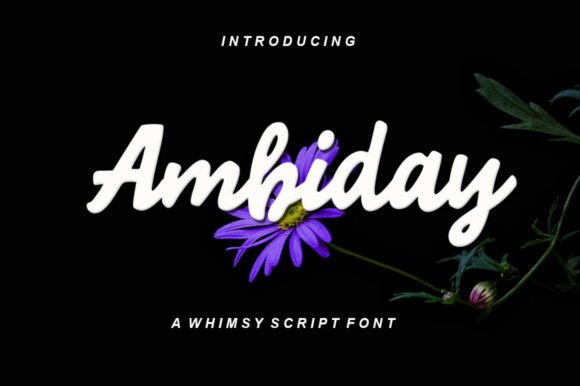
Introducing Ambiday Font: Elevate Your Designs with Elegance and Sophistication
In the world of typography, fonts play a crucial role in conveying the tone and personality of a brand or design. Among the numerous fonts available, Ambiday Font stands out for its unique blend of elegance and contemporary charm. This stylish script font is designed to add a refined and sophisticated touch to various design projects, making it an excellent choice for designers and businesses alike.
What is Ambiday Font?
Ambiday Font is a modern script font that boasts graceful strokes, fluid curves, and meticulously crafted letterforms. Its design draws inspiration from traditional hand-drawn calligraphy, but with a fresh and contemporary twist. This font is perfect for creating visually appealing designs that exude luxury, sophistication, and elegance.
Key Features of Ambiday Font
- Elegant Strokes: Ambiday Font features smooth, flowing strokes that give it a natural and organic feel.
- Fluid Curves: The font’s curves are carefully crafted to create a sense of movement and fluidity, making it perfect for designs that require a touch of dynamism.
- Polished Details: Every letterform is meticulously designed to ensure that the font delivers a polished and refined look.
- Versatility: Ambiday Font is suitable for a wide range of design projects, from logos and invitations to packaging and social media graphics.
Uses of Ambiday Font
Ambiday Font is an incredibly versatile font that can be used in various design projects. Here are some of the most popular use cases:
1. Logo Design
Ambiday Font is ideal for creating logos that require a touch of elegance and sophistication. Its unique letterforms and flowing strokes make it perfect for brands that want to stand out from the competition.
2. Invitations and Event Design
Whether you’re designing invitations for a wedding, birthday party, or corporate event, Ambiday Font is an excellent choice. Its refined and polished look makes it perfect for formal events and celebrations.
3. Packaging Design
Ambiday Font can add a touch of luxury and sophistication to packaging designs. Its elegant strokes and fluid curves make it perfect for high-end brands that want to create a lasting impression.
4. Social Media Graphics
Ambiday Font is also suitable for social media graphics, including Facebook posts, Instagram stories, and Twitter headers. Its versatility and visual appeal make it perfect for creating engaging and shareable content.
Benefits of Using Ambiday Font
Ambiday Font offers numerous benefits to designers and businesses. Here are some of the most significant advantages:
1. Unique and Memorable
Ambiday Font is a unique and memorable font that can help brands stand out from the competition. Its elegant strokes and fluid curves make it perfect for creating designs that are both visually appealing and distinctive.
2. Versatile and Flexible
Ambiday Font is an incredibly versatile font that can be used in various design projects. Its flexibility makes it perfect for designers who need to create a wide range of designs, from logos and invitations to packaging and social media graphics.
3. Time-Saving
Ambiday Font is a pre-designed font that can save designers a significant amount of time. Instead of creating a font from scratch, designers can use Ambiday Font to create professional-looking designs in a fraction of the time.
4. High-Quality Design
Ambiday Font is designed to deliver high-quality results. Its polished details and elegant strokes make it perfect for creating designs that are both visually appealing and professional.
Ambiday Font is a stylish script font that exudes elegance and contemporary charm. Its unique letterforms, elegant strokes, and fluid curves make it perfect for creating designs that are both visually appealing and sophisticated. With its versatility and flexibility, Ambiday Font is an excellent choice for designers and businesses looking to elevate their designs and create a lasting impression.